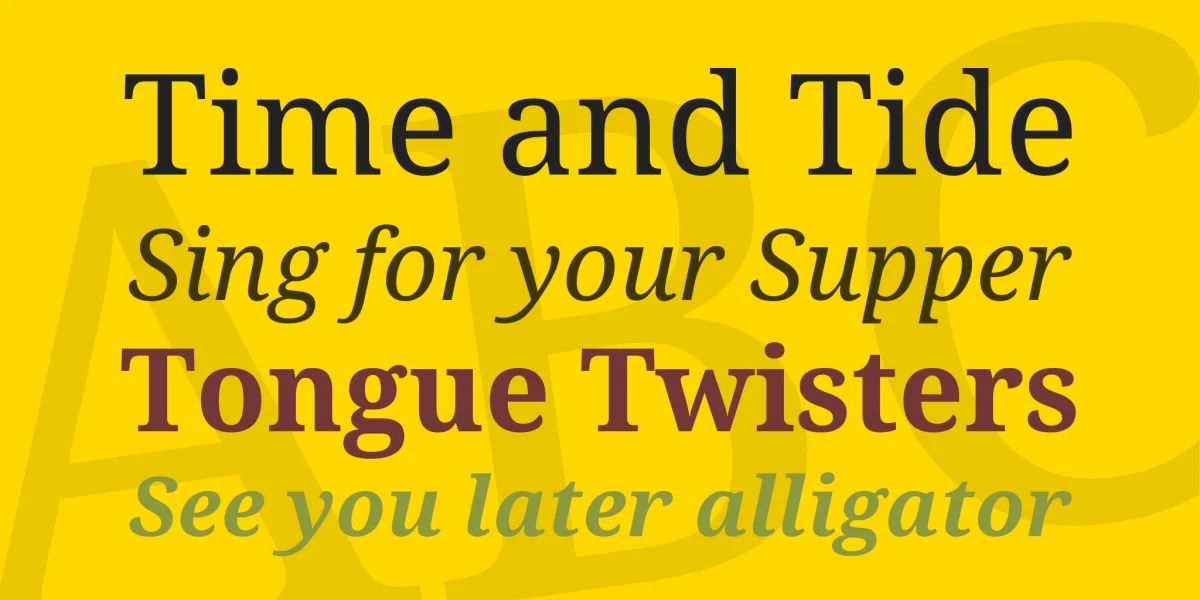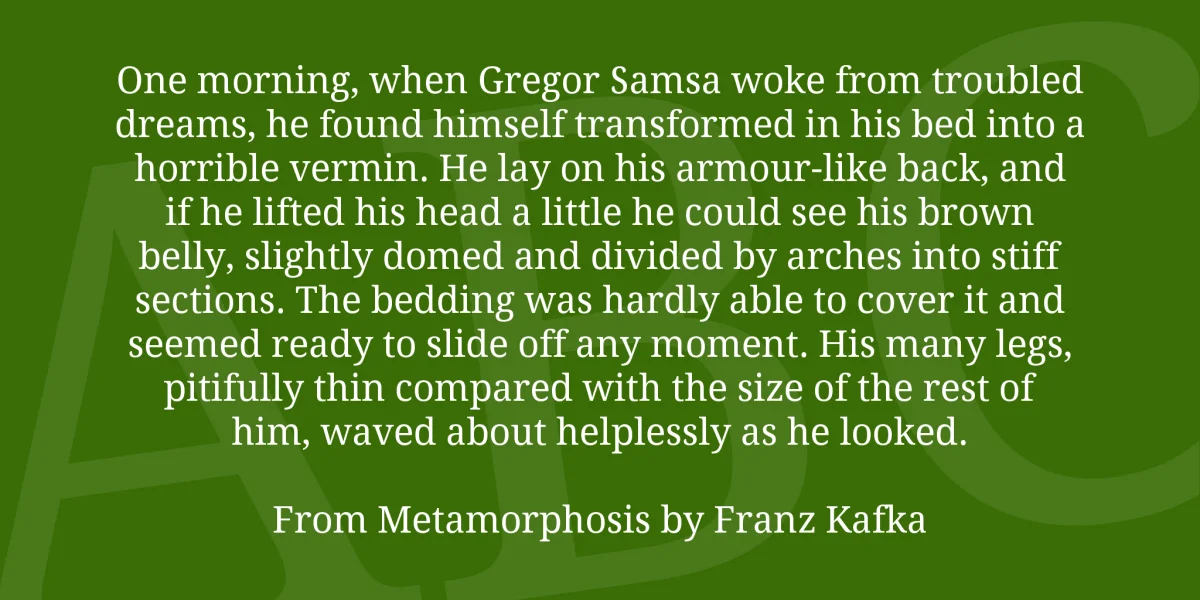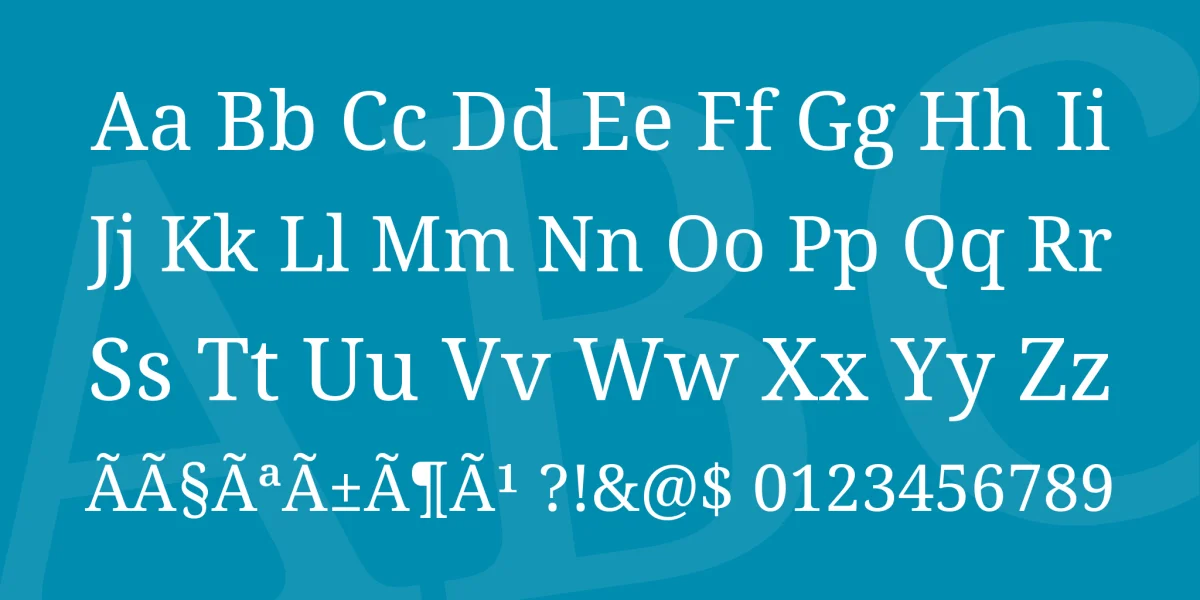
Droid Serif is a contemporary serif typeface family designed for comfortable reading on screen. Droid Serif is slightly condensed to maximize the amount of text displayed on small screens. Vertical stress and open forms contribute to its readability while its proportion and overall design complement its companion Droid Sans.